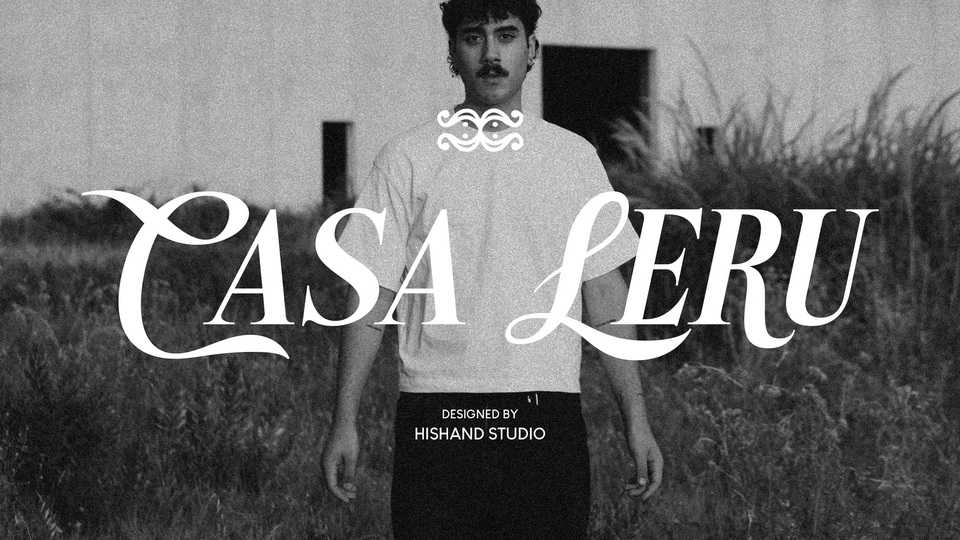
Download Casa Leru font, a sophisticated typeface that strikes a flawless balance between the structured elegance of a Serif and the fluid grace of a Script.